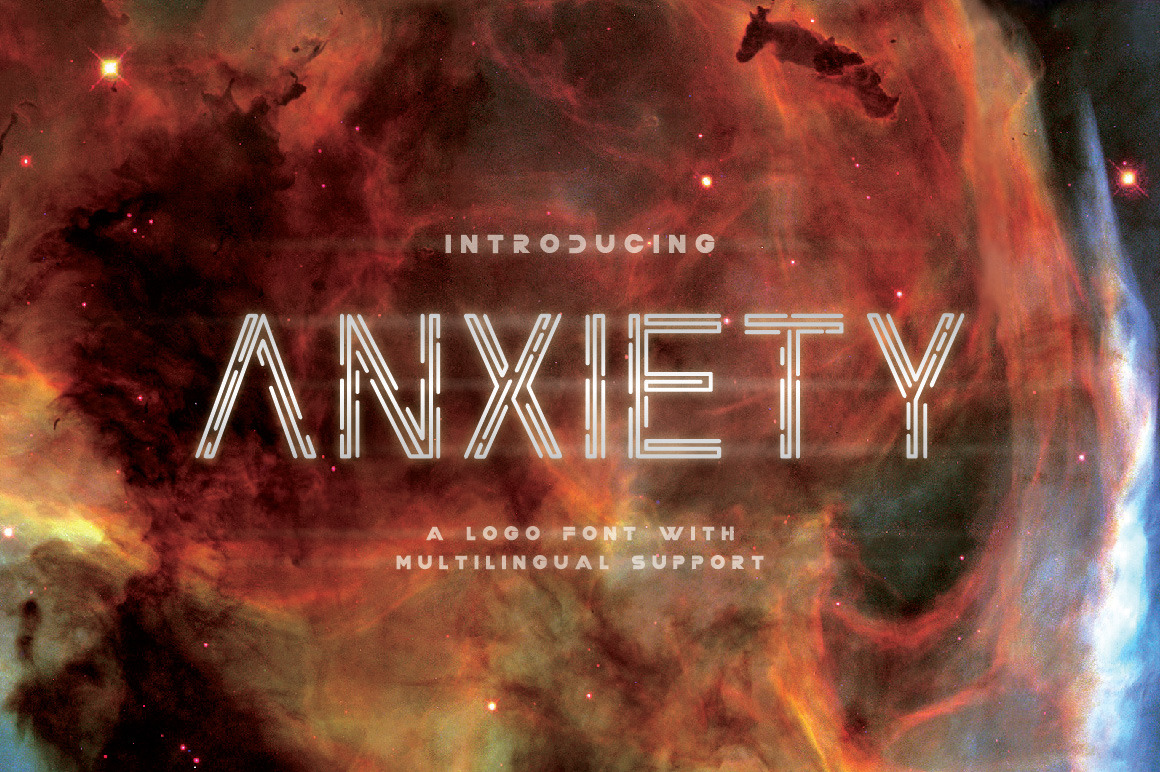
Anxiety Font
Introducing ANXIETY!! a new logo font with multilingual support, inspired from the feeling of strangulation that I visualized into the font's design . ANXIETY is a modern, futuristic, minimal and clean. With same upper & lower case characters, multilingual letters, numbers, and punctuation. This font makes way for the creativity of each and every one. ANXIETY is great for creating eye-catching headlines, logo, applicable for any type of graphic design web, print, motion graphics, perfect for t-shirts and other items like poster/ flyer, branding, packaging, pictograms, etc.